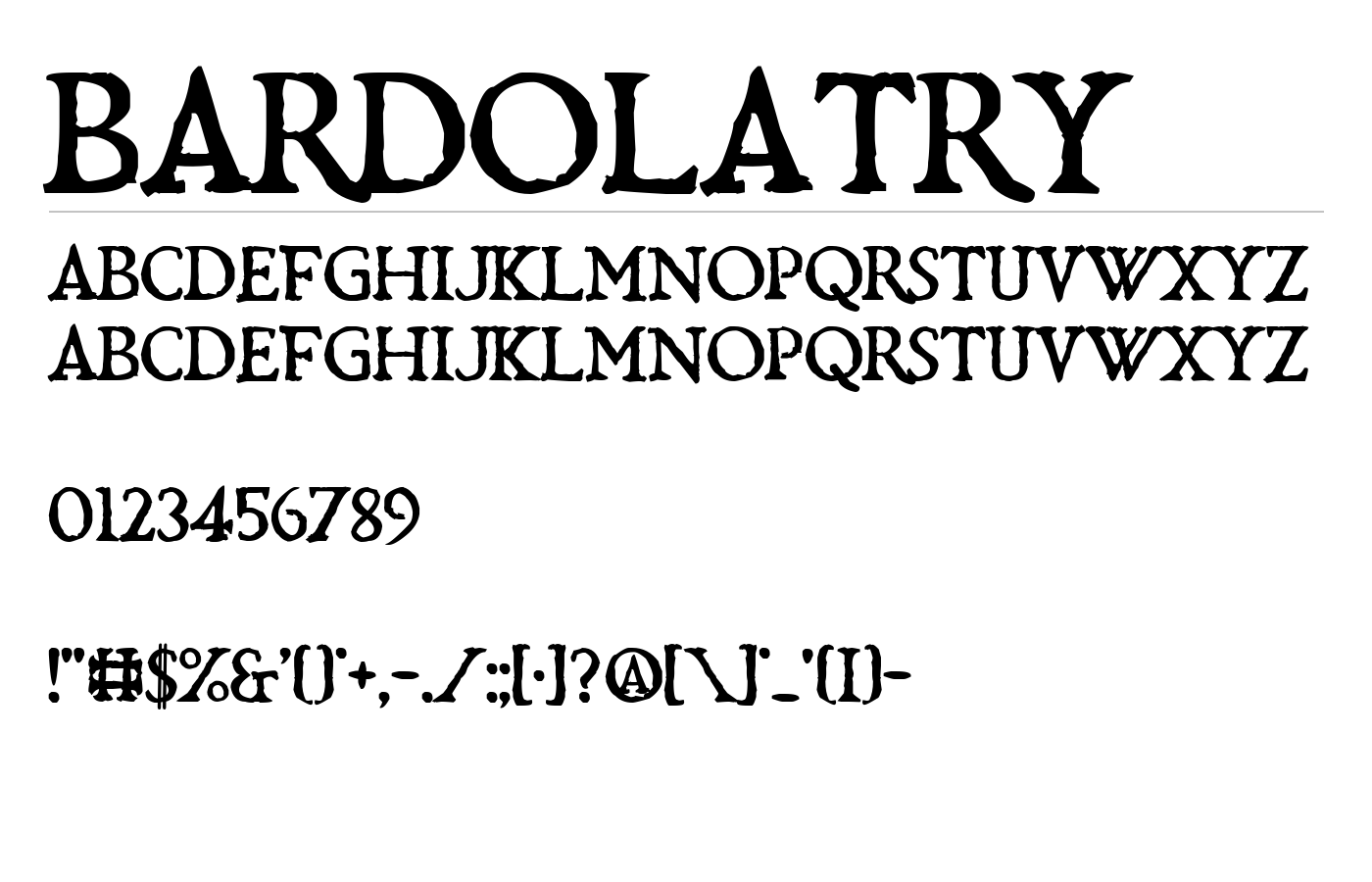
Bardolatry is a distinctive serif font with a hand-crafted, vintage feel that combines irregular strokes and medium contrast to evoke an old-world, literary charm. Its sharp, slightly distressed serifs and unique letterforms give it character and warmth, making it ideal for projects seeking a historical, artistic, or theatrical vibe. This font works wonderfully in headlines, posters, and branding that require a touch of classic elegance mixed with a bold, creative edge.
Bardolatry Font
About Bardolatry Font
| Font family | Bardolatry Font |
| Designer | Allison James |